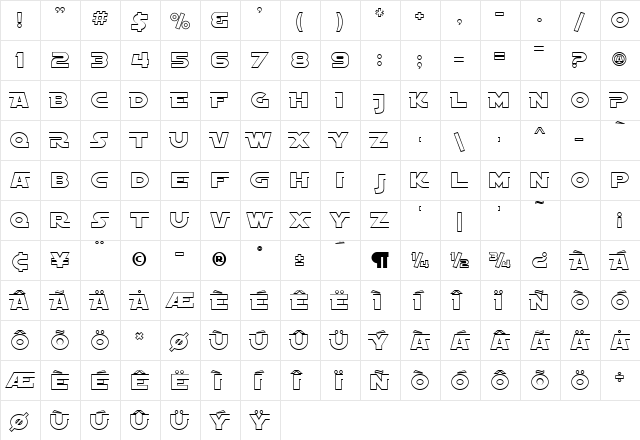
SF Distant Galaxy AltOutline Regular
Design Context for SF Distant Galaxy AltOutline Typeface
SF Distant Galaxy AltOutline is built around its visual character rather than neutral utility — its distinctive forms are designed to make an impression at display sizes.
Font Pairing: Pair with a clean neutral sans-serif for body copy to let SF Distant Galaxy AltOutline's character lead without overwhelming the composition.
Pro Tip: Use SF Distant Galaxy AltOutline exclusively at display sizes — it was designed to be seen, not read at length. Let a neutral companion handle body copy.